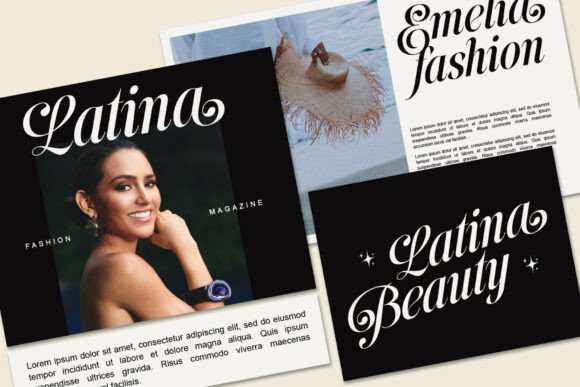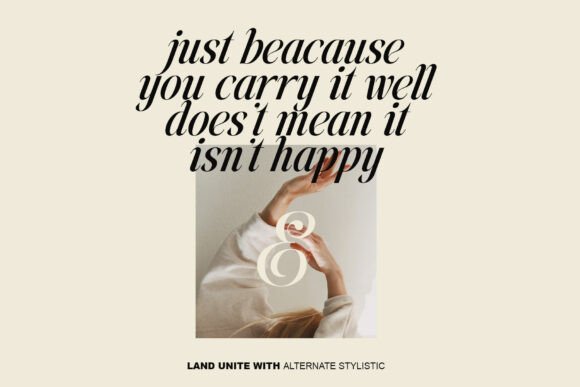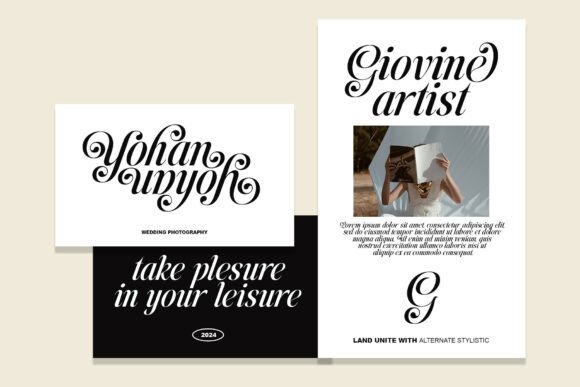
Introduction to Land Unite Font
There’s nothing quite like the thrill of discovering a new design resource that elevates your creative project to the next level. For designers, finding that perfect font can be the game-changer that sets your work apart from the rest. And, for those who crave a touch of sophistication and elegance, the Land Unite Font is sure to be a revelation.
With its expressive italic design and deep, swirling swashes, the Land Unite Font is a masterclass in typographic flair. Whether you’re working on a high-impact branding project or an artistic editorial design, this font’s bold, rhythmic curves are sure to make a statement. And, with its alternate stylistic characters, you’ll have the freedom to customize your look to suit your unique vision.
Key Features of Land Unite Font
- Unique characteristics include a modern and sleek aesthetic, making it perfect for branding, logos, and other design elements.
Honest Review: Land Unite Font
As a designer, I’m always on the lookout for high-quality fonts to elevate my creative projects. The Land Unite Font has caught my attention, and I’m excited to share my thoughts on this design resource.
- High-quality design: The font is well-designed and visually appealing, making it perfect for a wide range of creative projects.
- Limited character set: I found that the font only includes a limited character set, which may not be suitable for all types of projects.
- Not ideal for small text: The font may not be the best choice for small text, as it can become difficult to read.
Overall, I think the Land Unite Font is a solid choice for designers looking for a high-quality, free design resource. While it has some limitations, it’s a great option for many creative projects. With a little creativity, you can work around its limitations and achieve amazing results.
What is the recommended usage for the Land Unite Font?
The Land Unite Font is designed for use in a wide range of creative projects, from print materials to digital interfaces. It is suitable for body text, headings, and titles, and can be used in both personal and commercial projects. However, please note that the font is not intended for use in logos or branding, as it may not provide the necessary brand recognition and consistency.